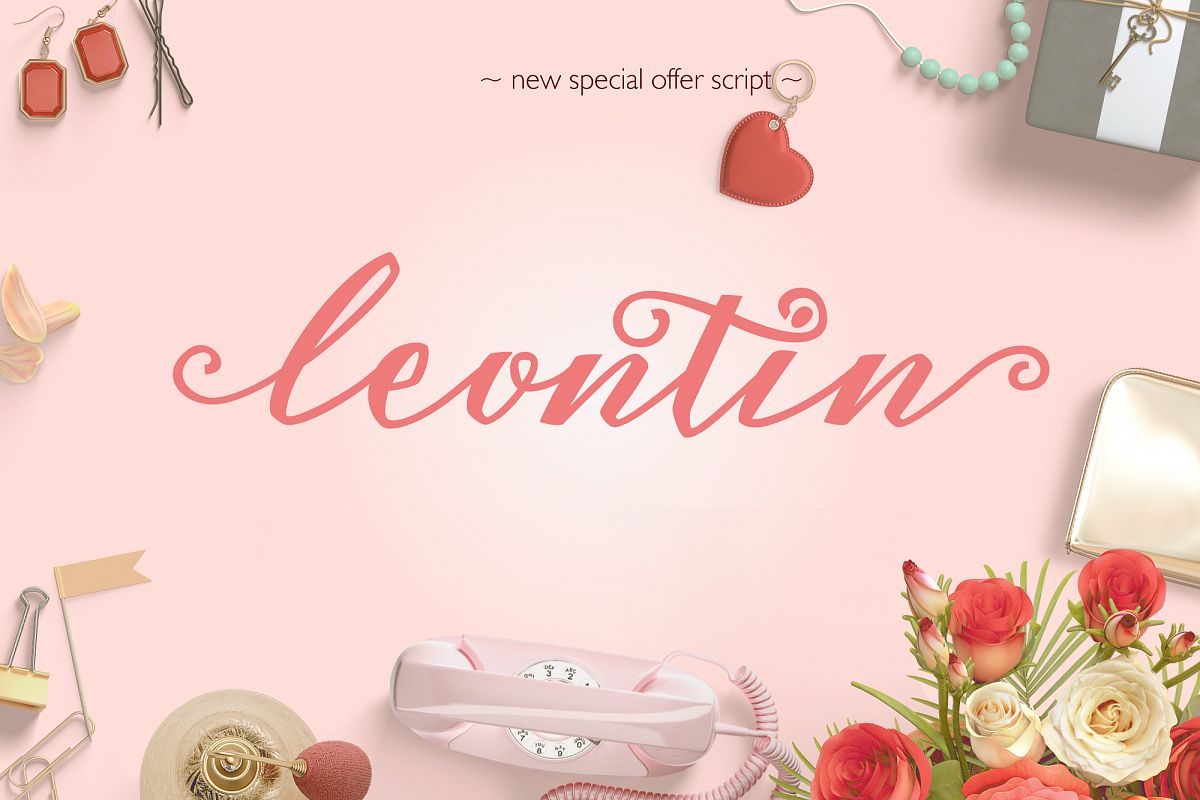
Hello Introduce Leontin Script Lovely & modern new variations calligraphic styles of today are very impressed with the style of lettering smooth and fast to be enjoyed, pendant font handwriting is interesting from a woman nearby, ideal for the growing market currently in promoting or celebrate your best day, as men like design wedding invitations, graduation, greeting cards, branding material, business cards, quote, posters, and much more!
The script comes with a Leontin of 290 glyphs alternative characters are divided into several types Open features such as Set Stylistic, air kind of - kind Substitute style very much and your beautiful to match your needs.